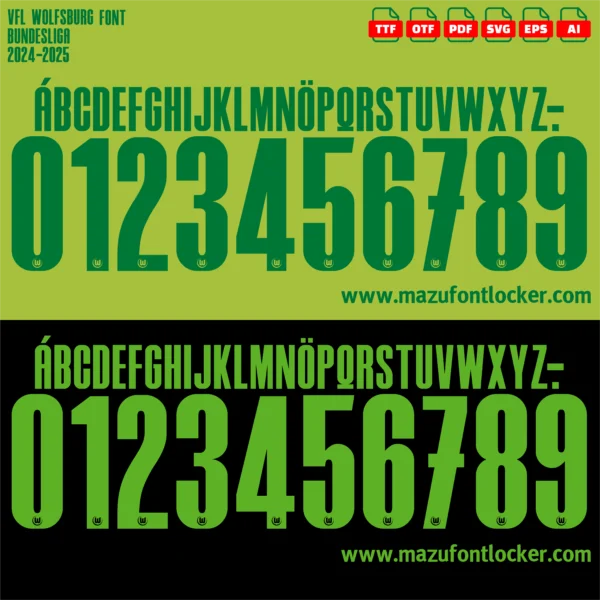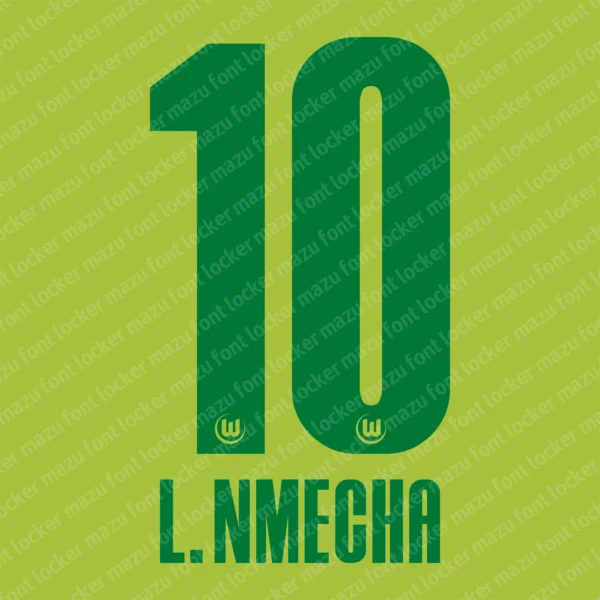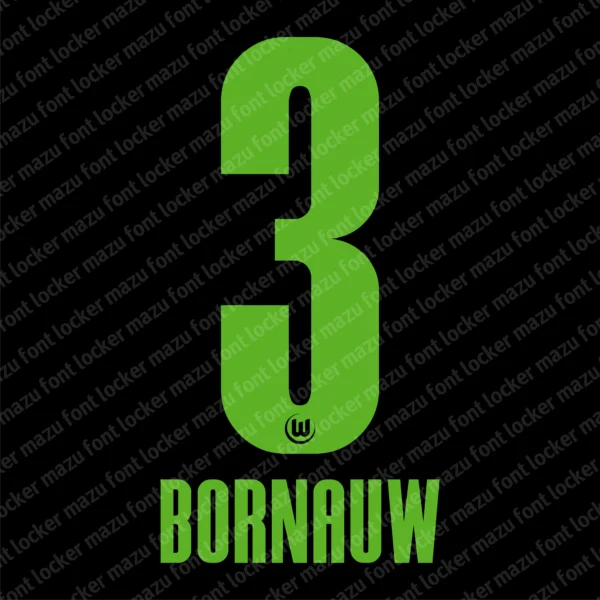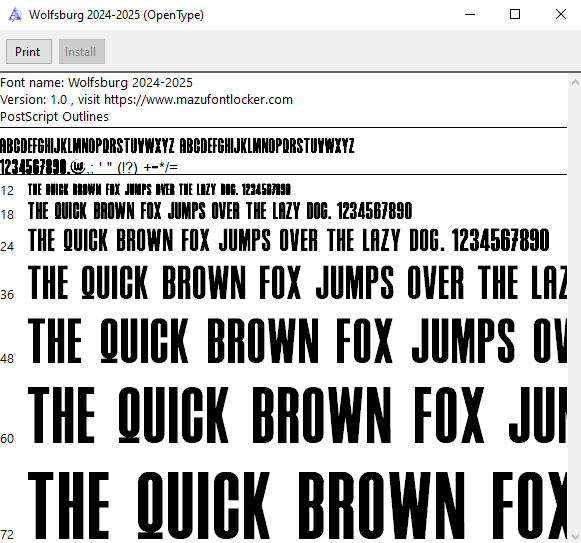
VfL Wolfsburg 2024-2025 Font Vector – Stunning Green Wolves Masterpiece
This font captures the sharp, precision-crafted lettering inspired by VfL Wolfsburg’s iconic green-and-white identity, modern German football heritage, legendary Wolves tradition, and fearless Bundesliga spirit — delivering premium authenticity and explosive match-day energy for professional jersey mockups, football graphics, sports branding, fan designs, and high-end creative projects.
VfL Wolfsburg 2024-2025 Font Vector – Stunning Green & White Typeface
The VfL Wolfsburg 2024-2025 Font Vector is a premium football typeface designed to recreate the distinctive lettering associated with VfL Wolfsburg during the 2024-2025 football season. This high-quality vector font kit captures a bold, clean, modern, and instantly recognizable typography style inspired by the club’s iconic green and white identity.
Designed for professional graphic designers, football enthusiasts, jersey collectors, and passionate Wolfsburg supporters, the VfL Wolfsburg 2024-2025 Font Vector delivers an authentic football aesthetic for creating realistic jersey mockups, football merchandise, social media graphics, match posters, squad designs, banners, and custom fan artwork. Every character has been carefully recreated to reflect the powerful and precise visual style of one of Germany’s most recognizable Bundesliga clubs.
This font stands out thanks to its precise vector construction and authentic club-inspired styling. Every letter and numeral has been meticulously recreated to deliver a distinctive football lettering aesthetic inspired by VfL Wolfsburg’s 2024-2025 campaign and its celebrated German football heritage.
Whether you’re producing professional football kit templates, custom jersey concepts, Bundesliga graphics, German football posters, or eye-catching football content, the VfL Wolfsburg 2024-2025 Font Vector delivers a genuine match-ready appearance inspired by the identity of the Wolves.
The lettering featured in the VfL Wolfsburg 2024-2025 Font Vector combines clean geometric lines with bold modern proportions. The result is a premium and highly readable typeface that reflects Wolfsburg’s modern football identity, iconic green and white colors, German Bundesliga heritage, and passionate fanbase.
- Complete uppercase A–Z alphabet and numbers 0–9 in authentic Wolfsburg 2024-2025 inspired style
- Special VfL Wolfsburg badge glyph – Press the “:” (Colon) key to insert the club crest
The VfL Wolfsburg 2024-2025 Font Vector is inspired by the distinctive football typography and visual identity associated with the club during this campaign, making it an excellent choice for designers creating custom jersey concepts, Bundesliga football posters, squad graphics, matchday artwork, social media designs, and fan-made projects.